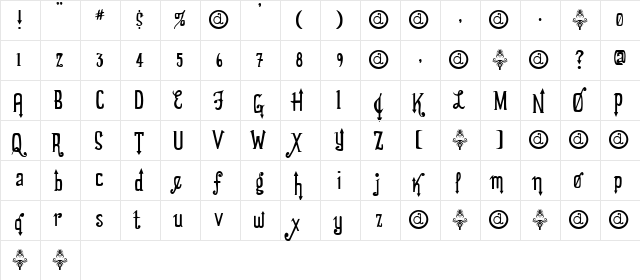
Showgirl Erin Font Preview
Showgirl Erin
Design Context for Showgirl Typeface
Showgirl is a composed and adaptable typeface that performs quietly and consistently across a wide range of design contexts.